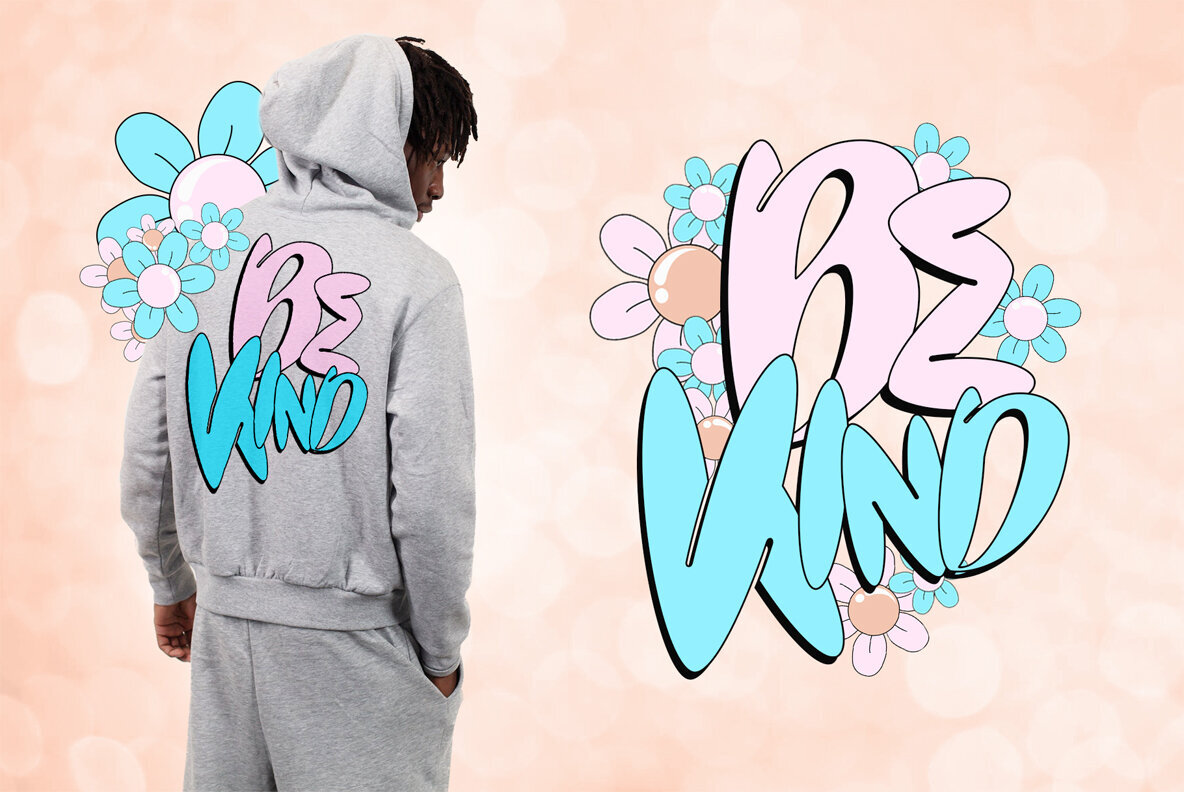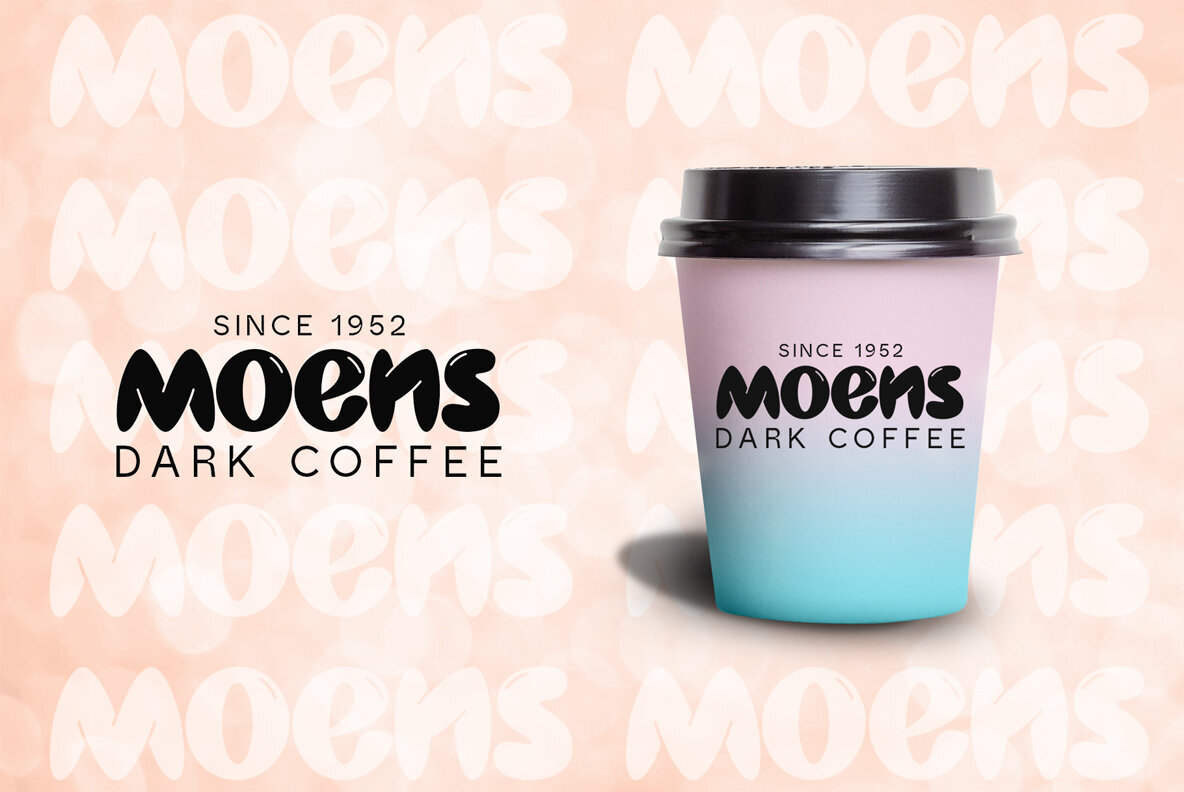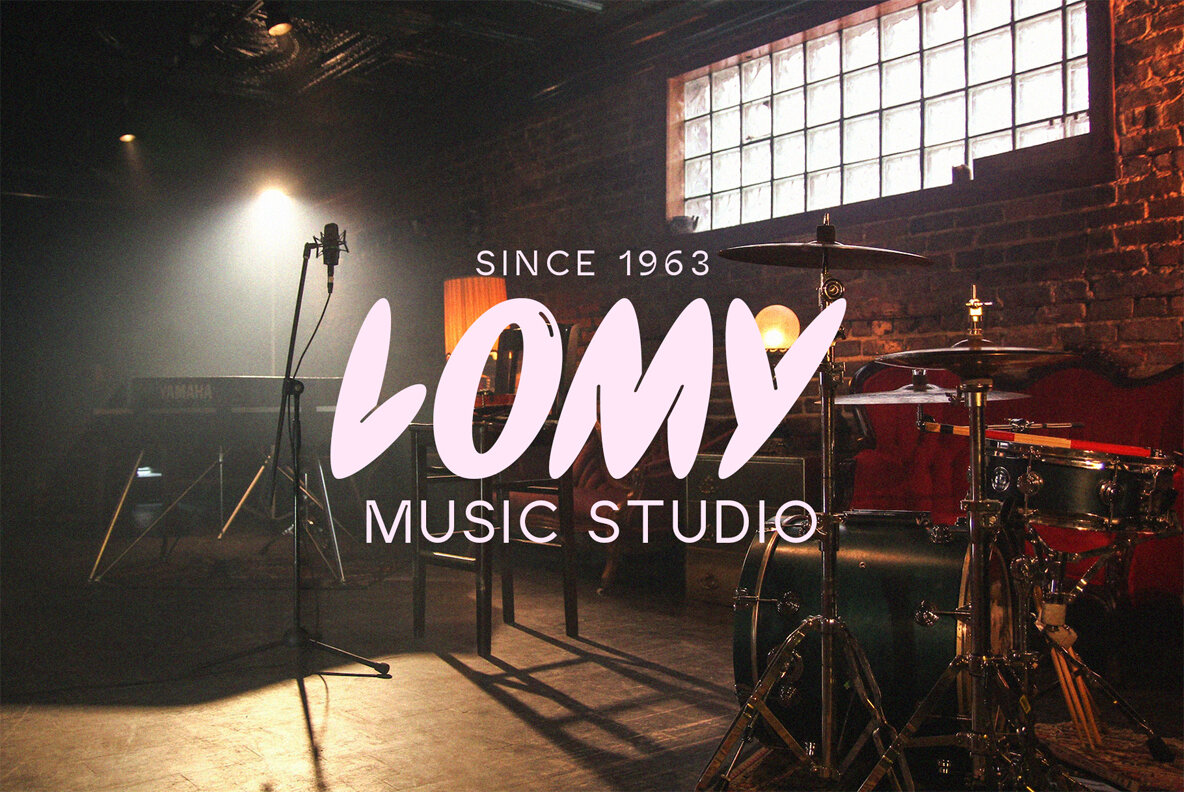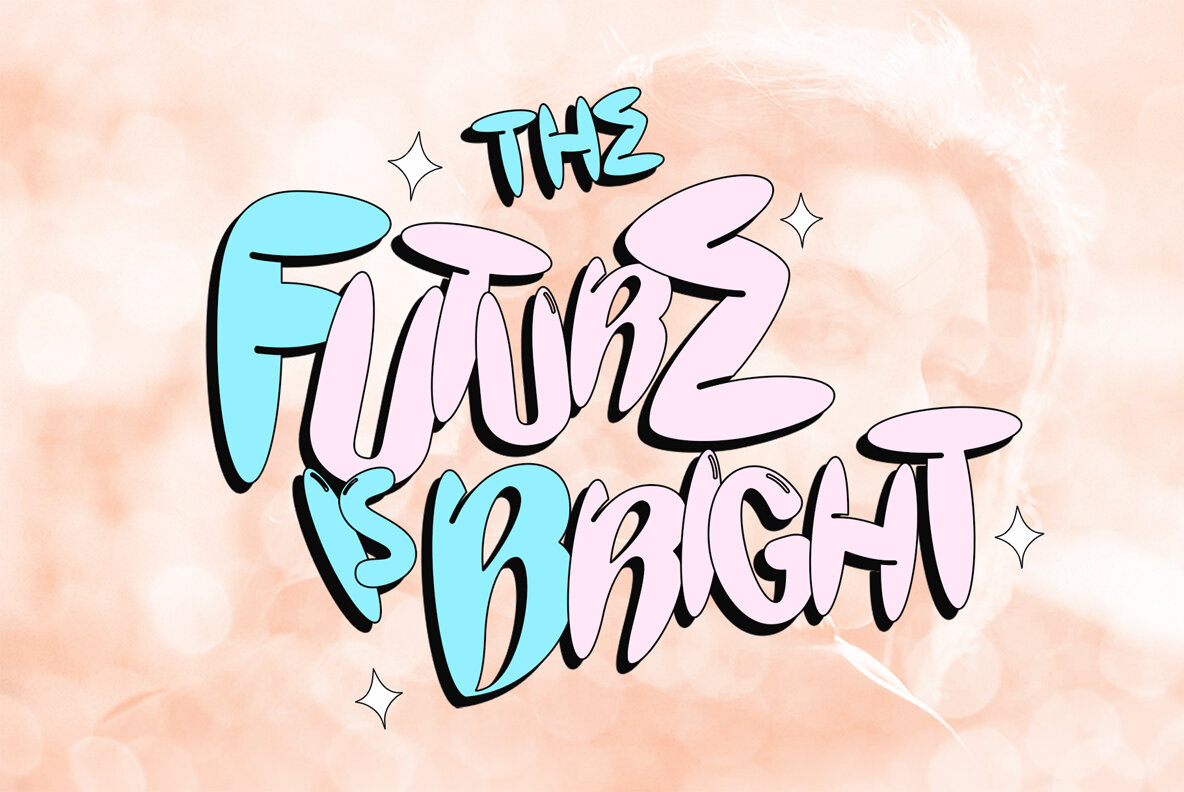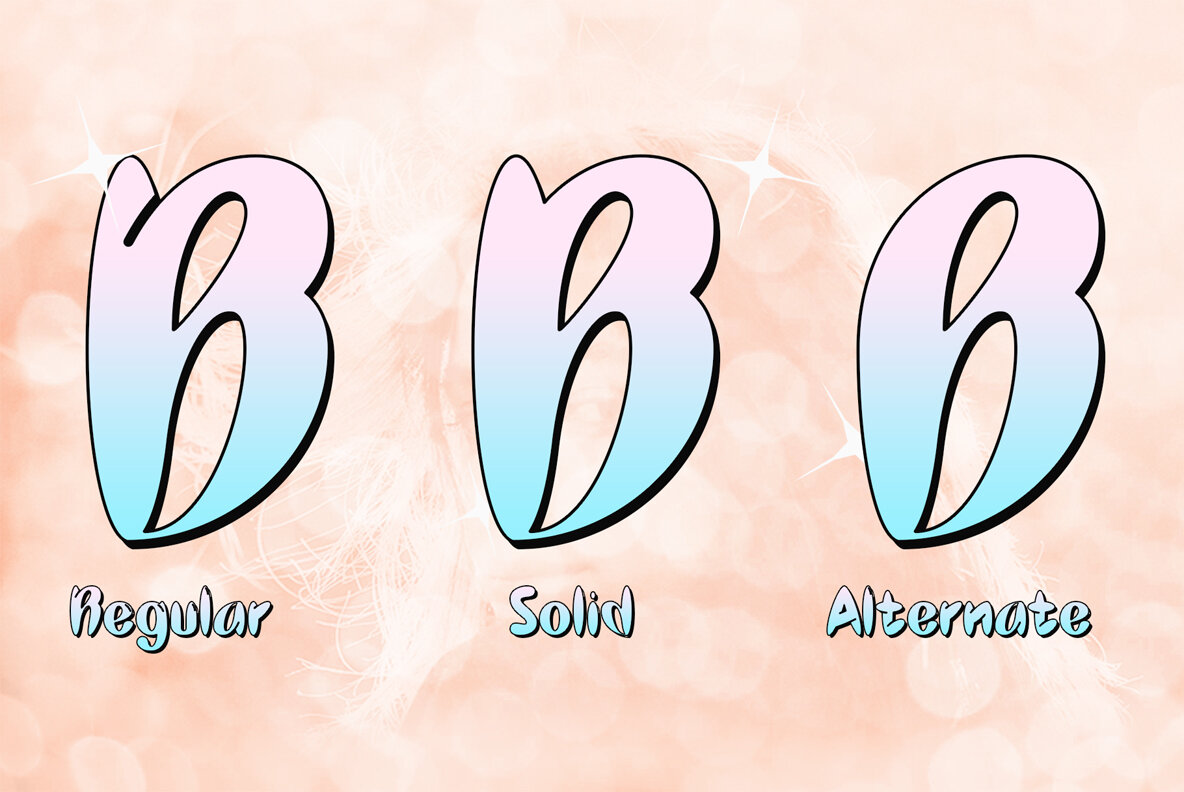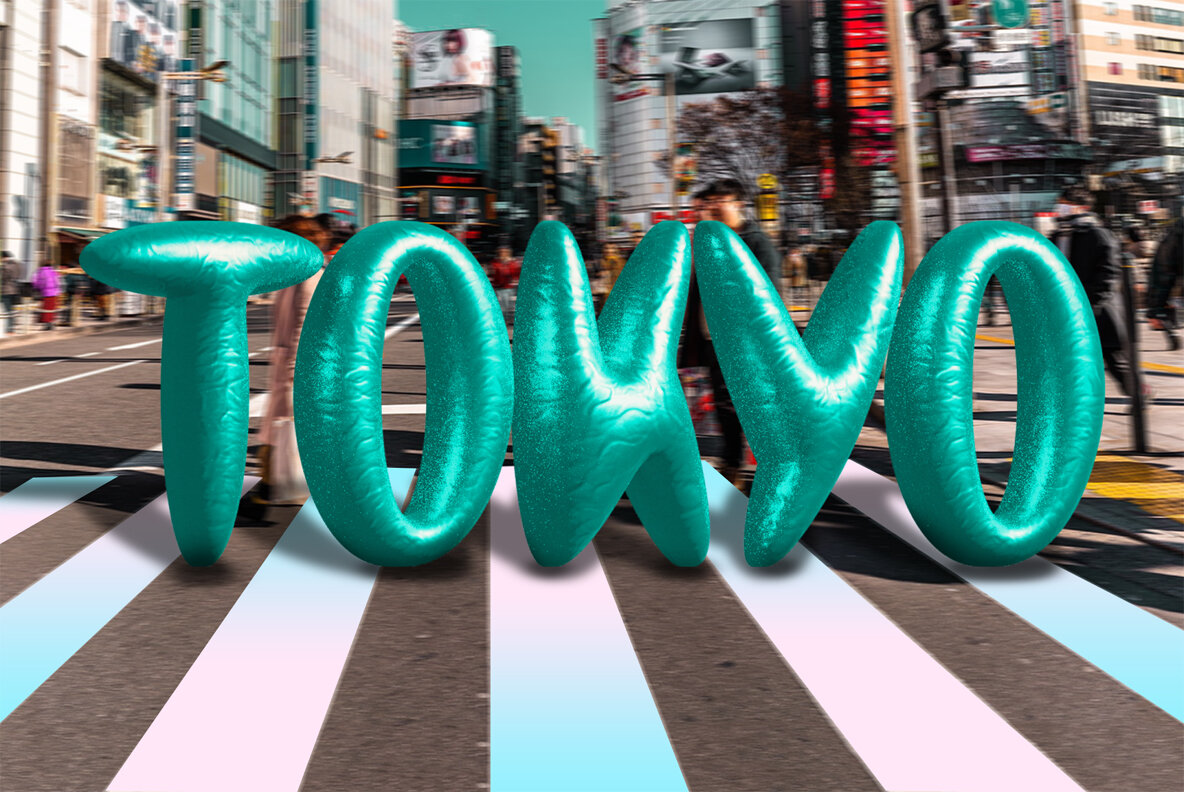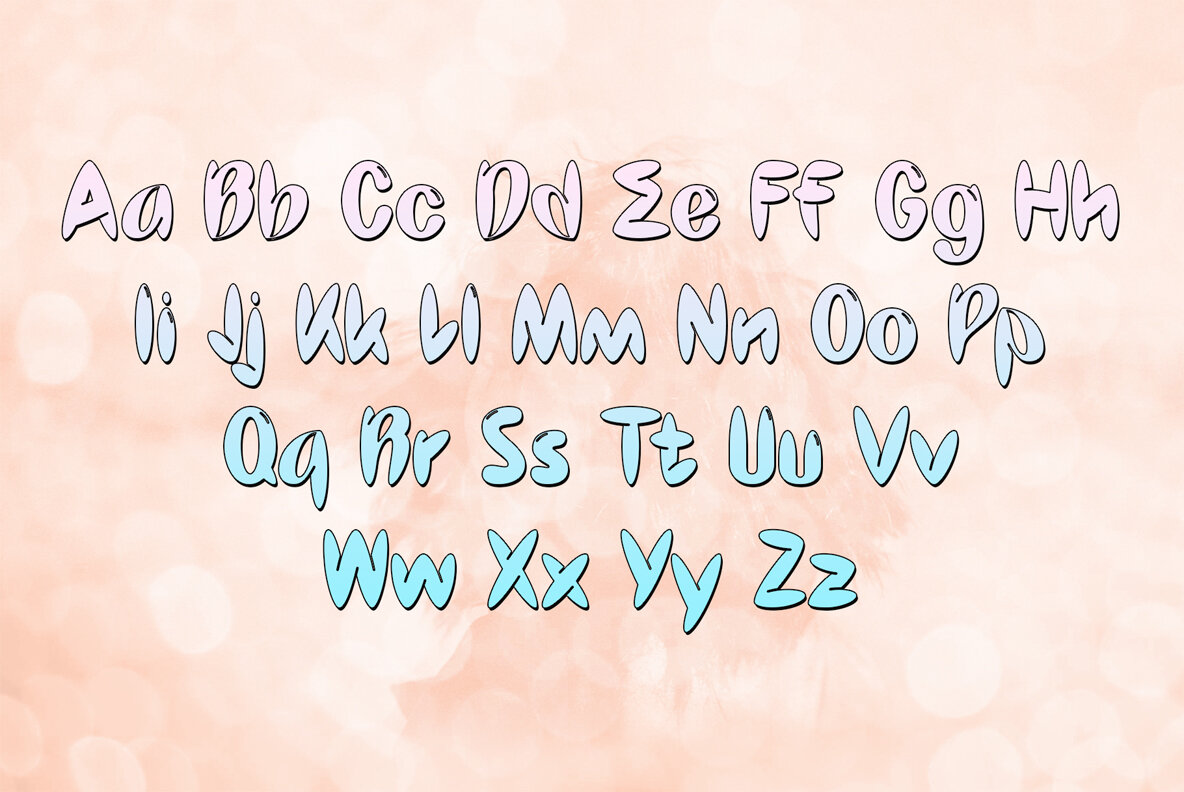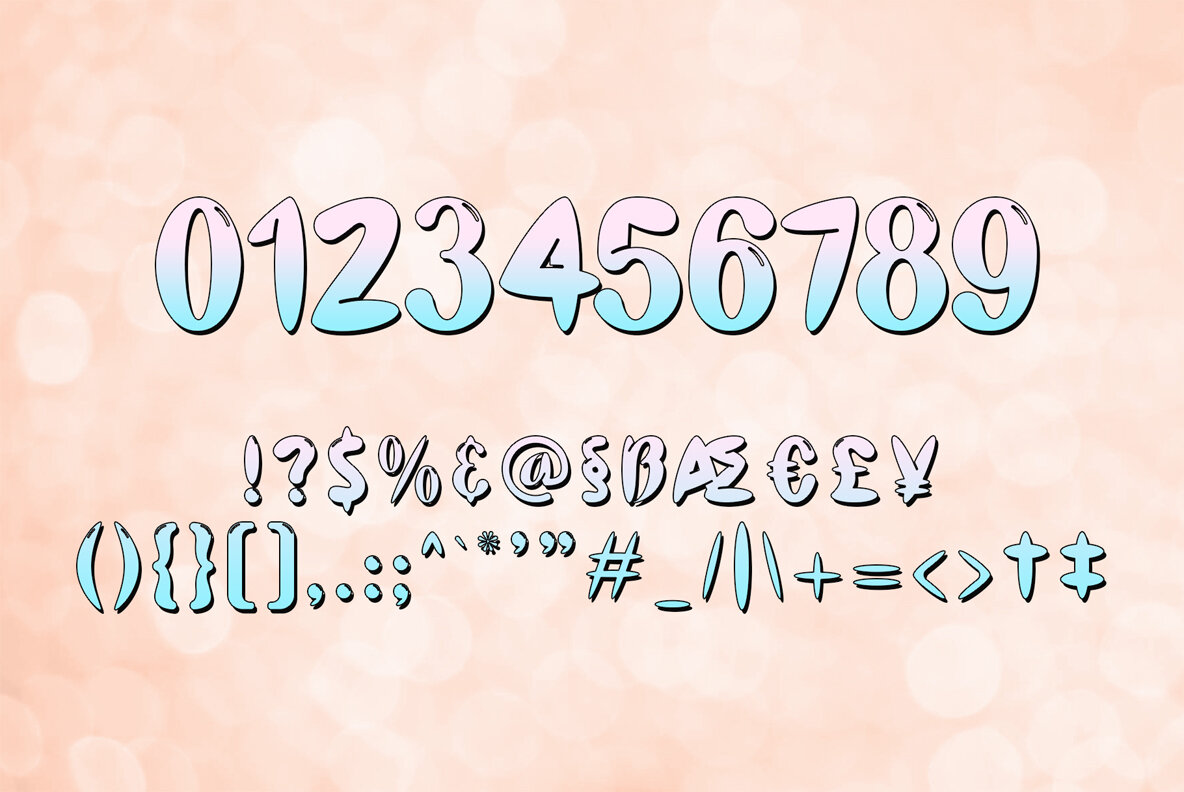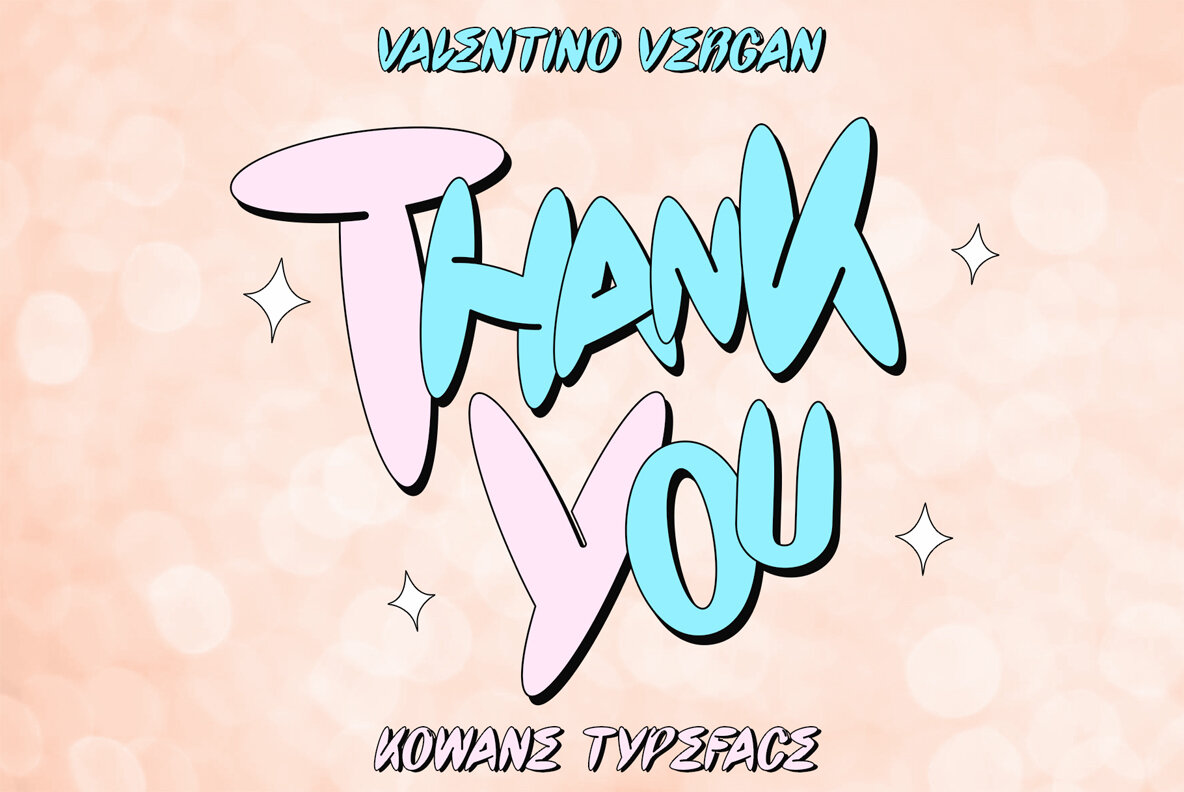
Kowane Font
Kowane is a very eye-catching and creative bubble font. Kowane is designed with fun and playful letters, making it great for retro designs and graffiti projects. Kowane comes in regular and oblique styles, included is a set of solid uppercase and lowercase letters.